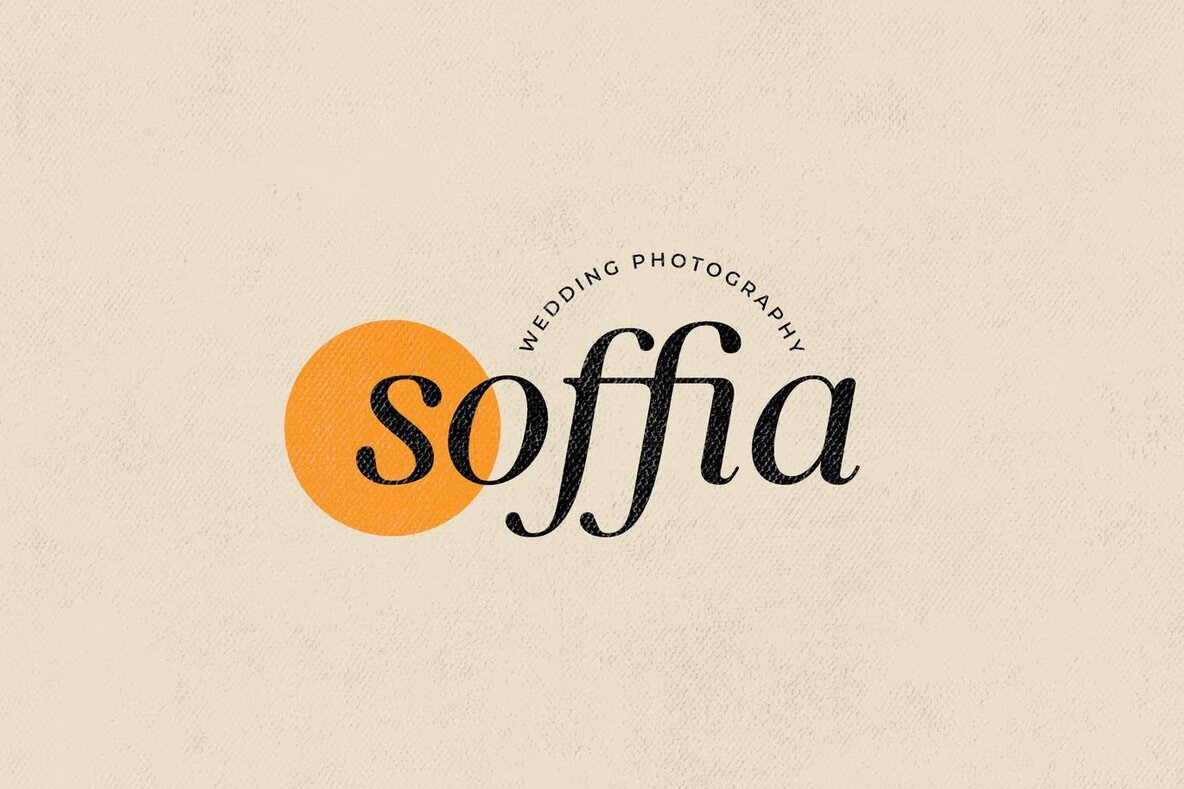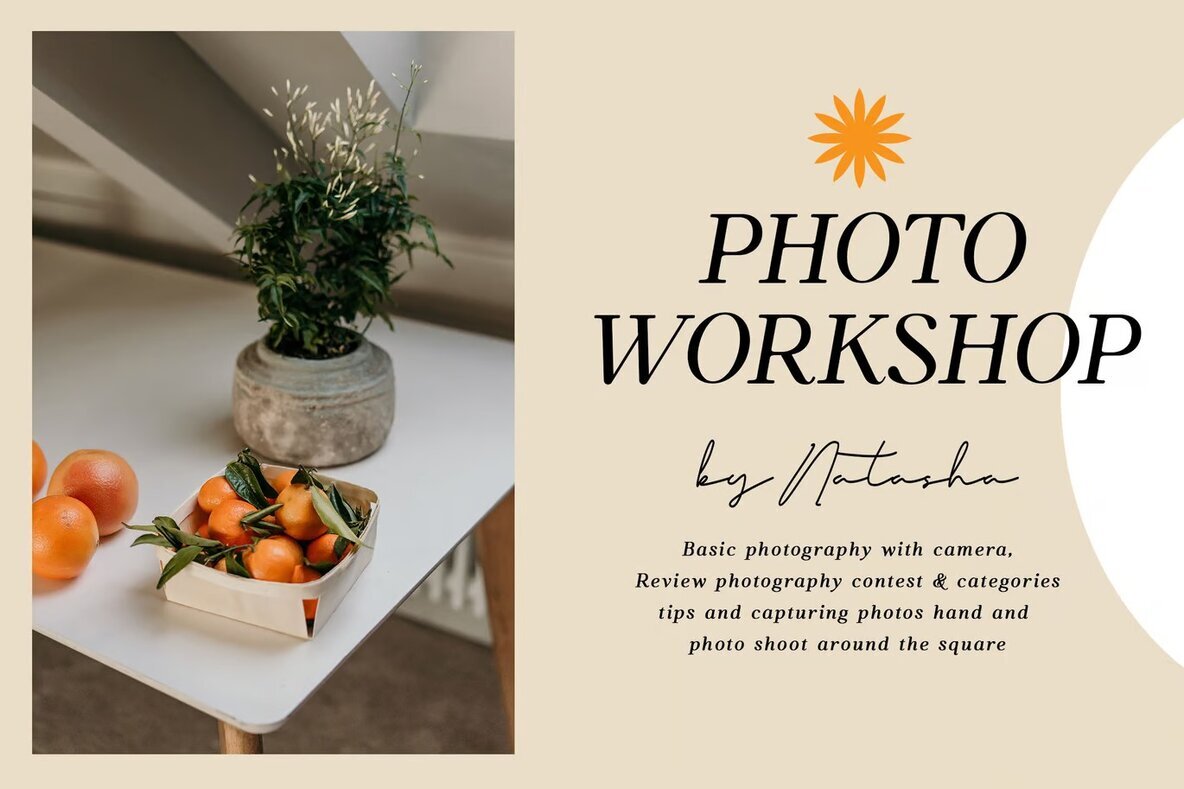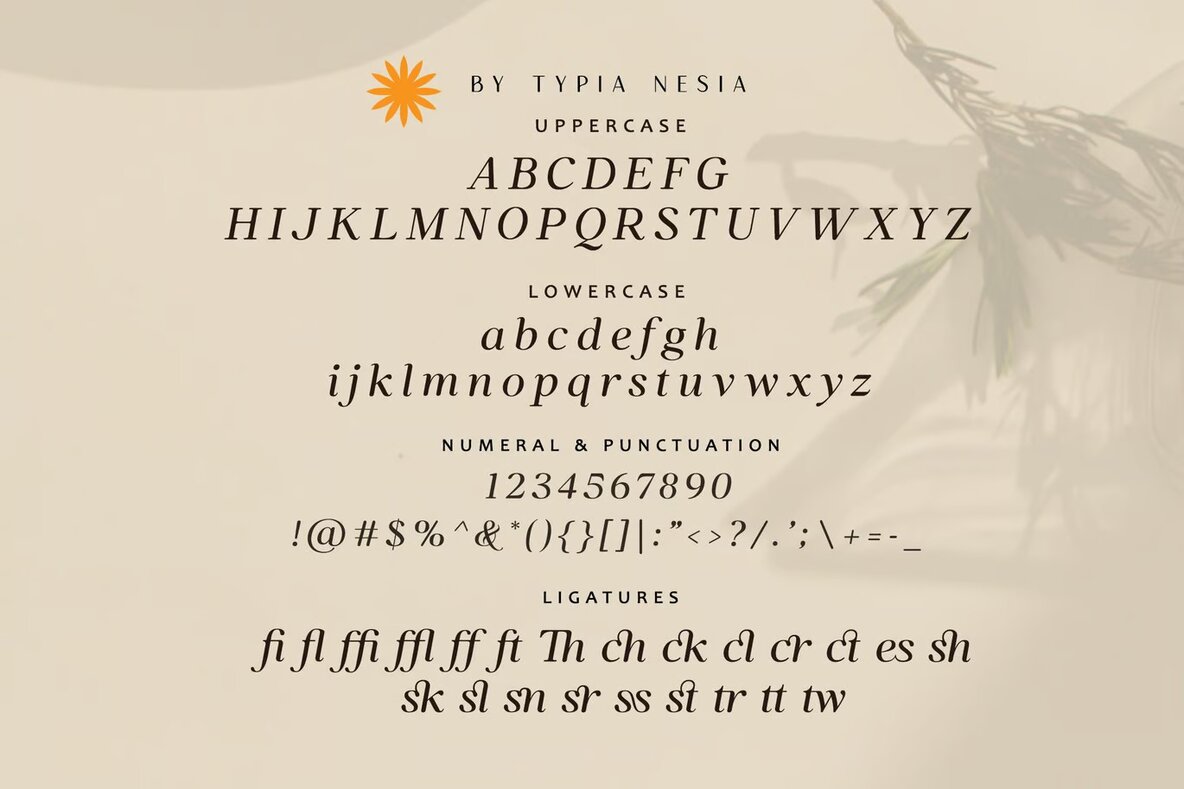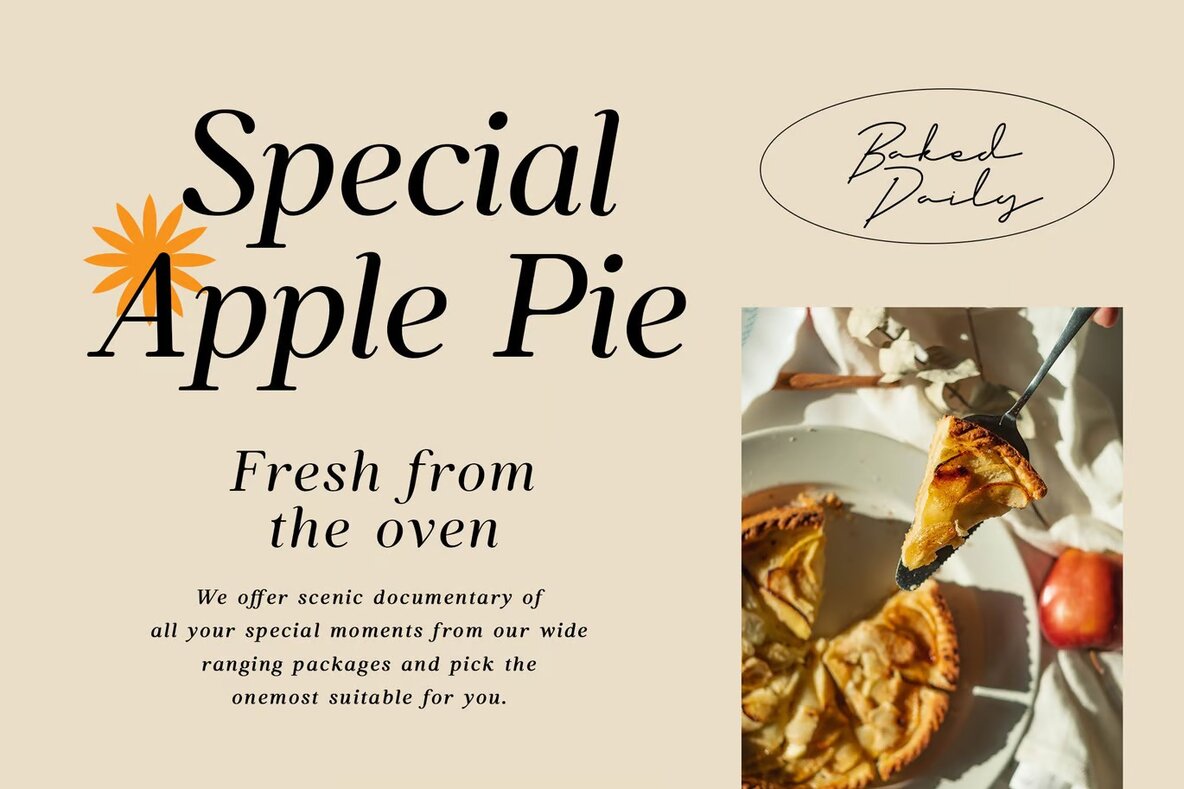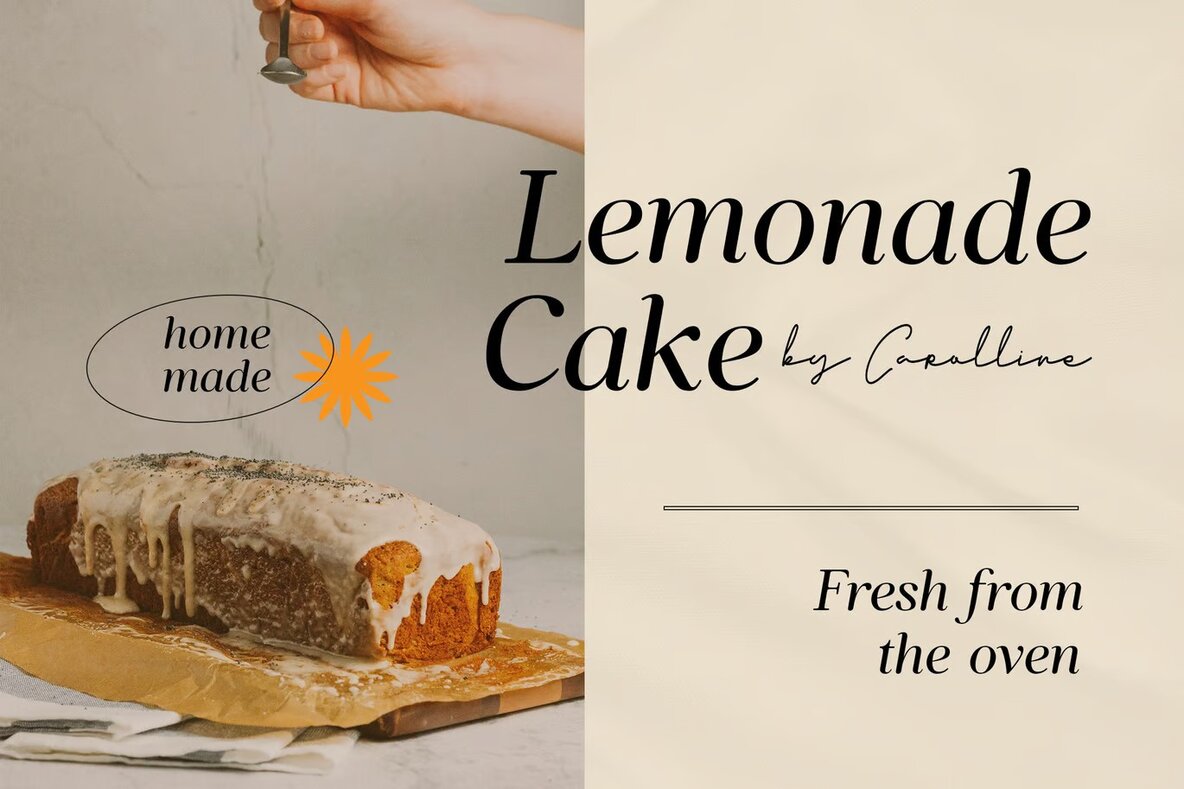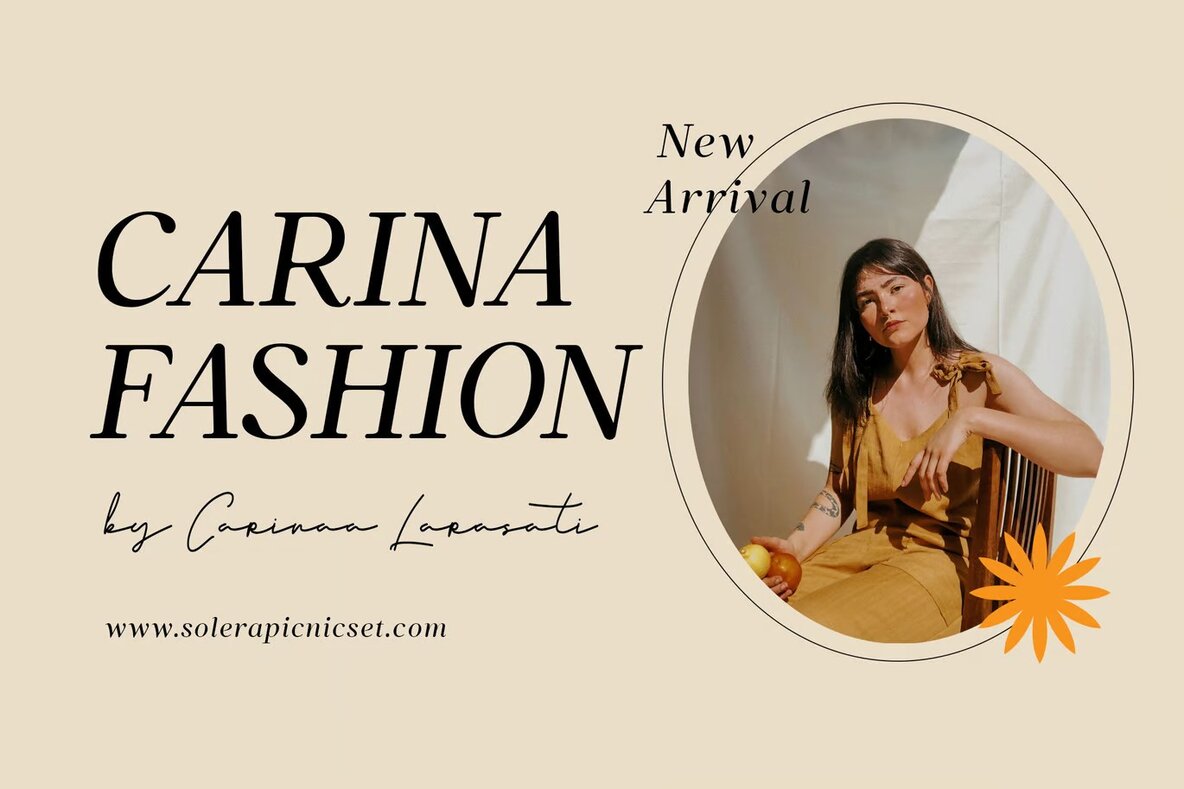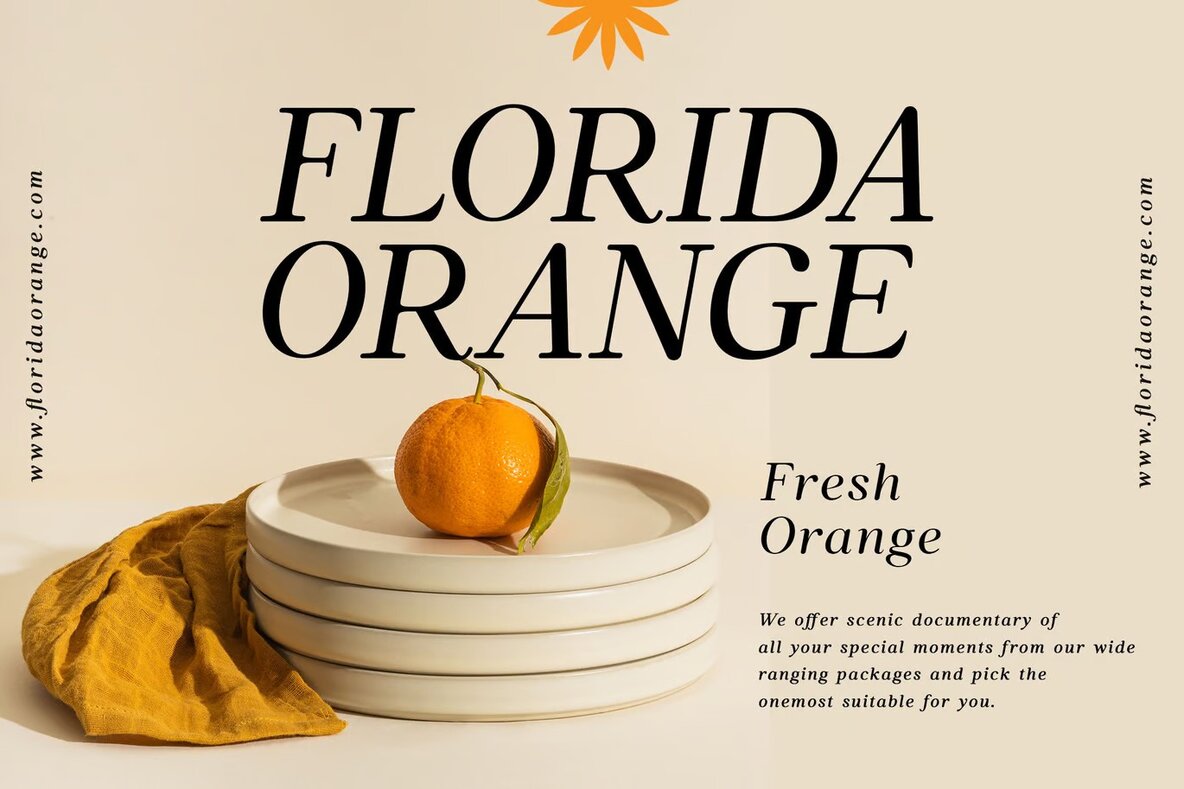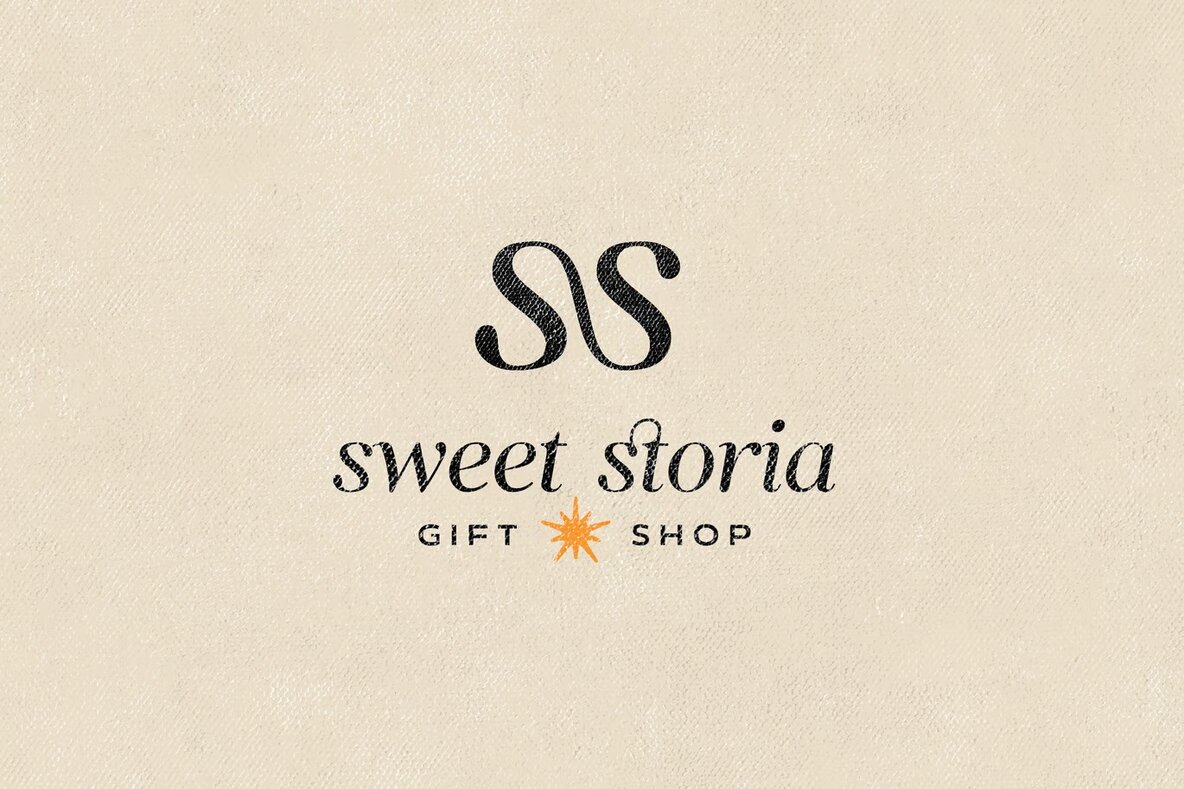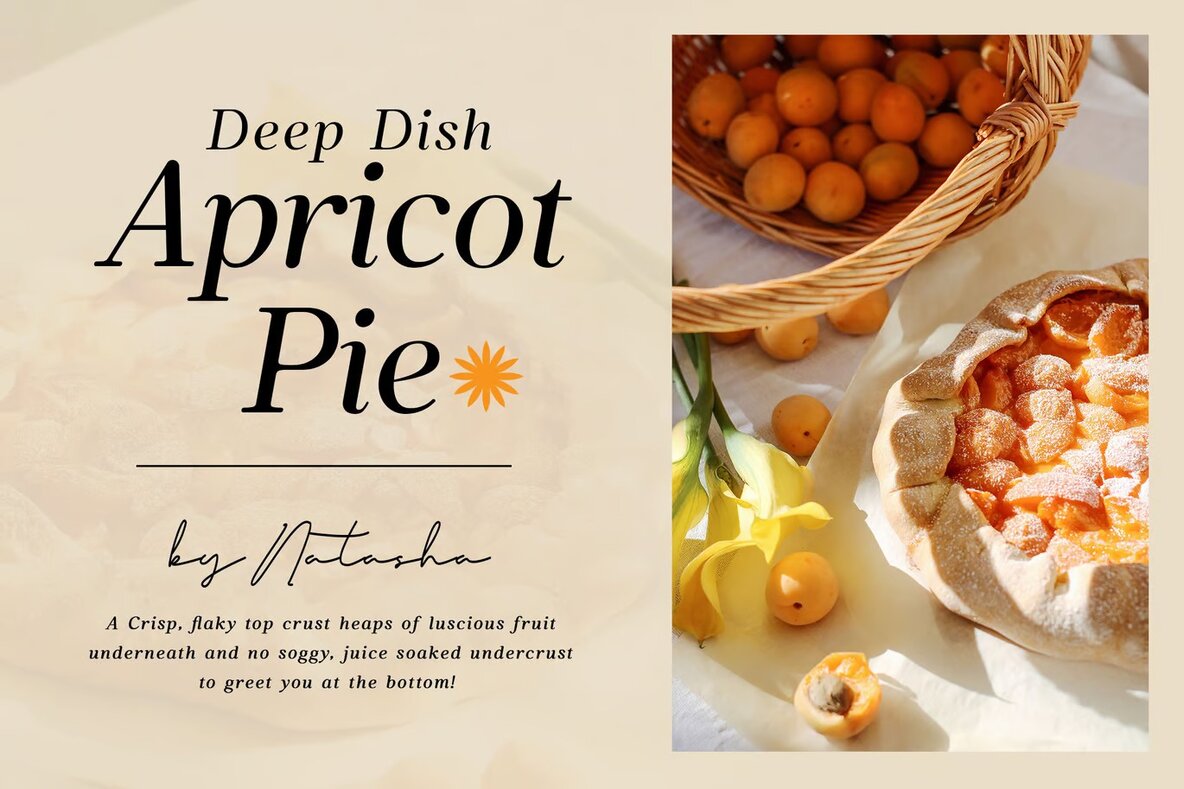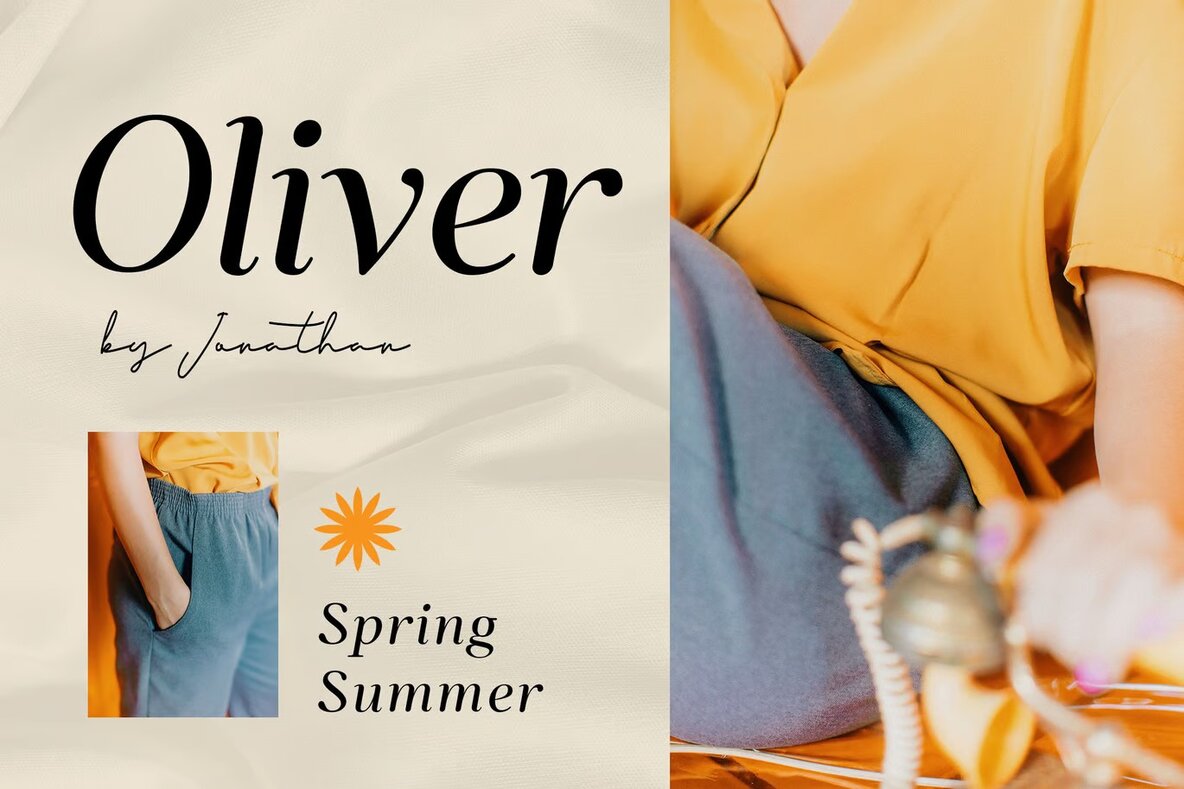
Blisstwin Font
Blisstwin Regular
Blisstwin is an elegant and glamorous italic serif font that brings a modern and feminine touch to your designs. Its stylish curves and sophisticated appearance make it an excellent choice for various design projects. Whether you are working on creating a luxury logo, crafting a classy editorial layout, or designing a fashion promotional piece, Blisstwin offers the sophistication needed to make your work stand out. With added ligatures, this font provides the flexibility to create eye-catching typography.
Ideal for branding initiatives in cosmetics, fashion, and art galleries, Blisstwin also enhances the visual appeal of woman magazines and boutique branding. Its versatility extends to stationery design, blog design, modern advertisements, and more. Perfect for invitations and art quotes, this font also suits home decor, book covers, and special events. Embrace the modern class and timeless beauty of the Blisstwin serif font to make a lasting impression in any design context.